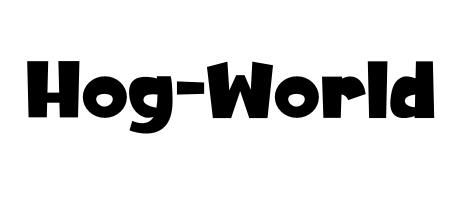
Hog-World
By PINISIART
Hog-World: A bold, playful typeface, Hog-World exudes a whimsical yet robust energy. Its chunky, slightly uneven letterforms suggest a hand-crafted feel, blending rustic charm with modern impact. Perfect for headlines, logos, and anything needing a touch of rugged fun. It''s a hog-wild good time for your typography needs!